How to Make Your Logo Stand Out with the Right Typeface
How to Make Your Logo Stand Out with the Right Typeface: A Guide to the Best Fonts for Logos
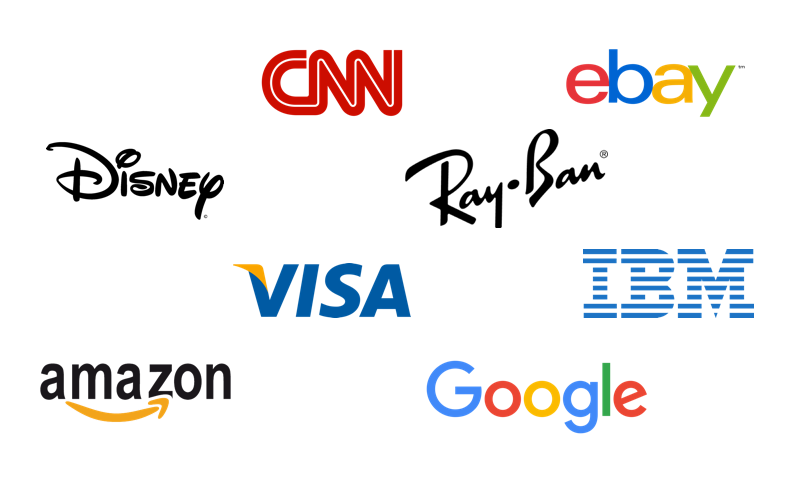
When it comes to creating a memorable brand identity, choosing the best fonts for logos can make or break your visual presence. Typography isn't just about aesthetics it's a powerful communication tool that conveys your brand's personality, values, and positioning before a single word is read. In this comprehensive guide, we'll explore proven logo typeface tips and strategies to help you select fonts that elevate your brand and ensure your logo commands attention in any market.
Why Typography Matters in Logo Design
Your logo's typeface is often the first impression customers have of your business. The right font choice communicates professionalism, establishes emotional connections, and differentiates you from competitors. According to research from MIT's AgeLab, font legibility directly impacts how trustworthy a brand appears, while studies published in the Psychology of Aesthetics, Creativity, and the Arts show that typeface personality traits transfer to brand perception.
Whether you're launching a startup or refreshing an established brand, understanding how fonts influence consumer behavior is essential for making strategic design decisions.
Understanding Font Categories for Branding
Before diving into specific recommendations, let's break down the main typeface families and what they communicate:
Serif Fonts: Tradition Meets Authority
Serif fonts feature small decorative strokes (serifs) at the ends of letterforms. These typefaces have roots in traditional print media and convey:
- Trustworthiness and reliability – Financial institutions like JPMorgan Chase use serif logos to project stability
- Heritage and established credibility – Luxury brands such as Rolex leverage serifs for timeless elegance
- Professionalism and formality – Law firms and educational institutions favor serif typography
Popular serif choices include Garamond, Baskerville, and Didot. The Cooper Hewitt Smithsonian Design Museum offers fascinating historical context on how serif fonts evolved from Roman inscriptions.
Sans Serif Fonts: Clean, Modern, and Accessible
Sans serif fonts omit decorative strokes, creating streamlined letterforms that feel contemporary. These modern sans serif logos communicate:
- Innovation and forward-thinking – Tech giants like Google, Airbnb, and Spotify use sans serif fonts
- Approachability and clarity – The simplified forms feel friendly and unpretentious
- Versatility across platforms – Sans serifs maintain legibility at any size, from billboards to mobile screens
Top sans serif options include Helvetica, Futura, Proxima Nova, and Montserrat. Google's Material Design typography guidelines provide excellent insights into how sans-serif fonts support digital-first branding.
Script and Display Fonts: Personality with Purpose
Script fonts mimic handwriting or calligraphy, while display fonts are decorative typefaces designed for impact. These categories work when:
- Conveying elegance or sophistication – Wedding brands, beauty products, and high-end restaurants
- Expressing creativity and individuality – Artistic ventures, craft businesses, and personal brands
- Making bold statements – Entertainment, fashion, and youth-oriented brands
The iconic Coca-Cola script logo demonstrates how a distinctive typeface can become synonymous with a brand identity. However, script and display fonts require careful handling they should prioritize readability and avoid feeling dated.
Logo Typeface Tips: Key Principles for Success
1. Prioritize Readability Above All
The most beautiful font means nothing if customers can't read your business name. Test your logo typeface at multiple sizes:
- Large format (billboards, storefront signage)
- Medium scale (business cards, packaging)
- Small applications (social media avatars, mobile app icons)
Ensure letterforms don't blur together and that negative space between characters is balanced. The Nielsen Norman Group has published extensive research on legibility factors that apply to logo design.
2. Align Typography with Brand Values
Your font choice should authentically reflect what your business stands for. Ask yourself:
- What emotions should my brand evoke?
- Who is my target audience, and what typography resonates with them?
- What differentiates my brand from competitors in this space?
A children's toy company benefits from playful, rounded sans serifs, while a cybersecurity firm needs something that projects strength and precision.
3. Consider Timelessness Over Trends
While trendy fonts can make your logo feel current, they risk appearing dated within a few years. The best approach combines contemporary sensibilities with classic design principles that age gracefully.
Remember that typography is an investment in your brand's future. Whether you choose a classic serif, a modern sans serif, or commission custom logo fonts, prioritize readability, authenticity, and consistency. The right typeface doesn't just make your logo look good it ensures your brand stands out, builds recognition, and connects emotionally with your audience.